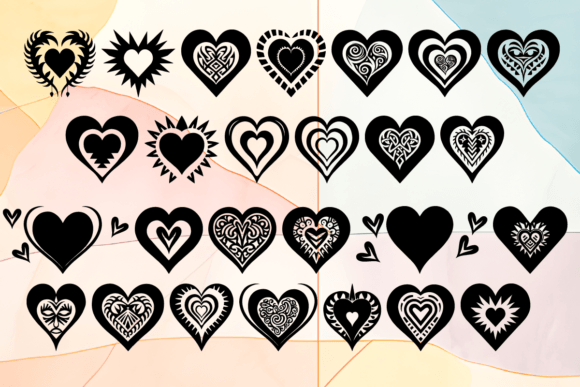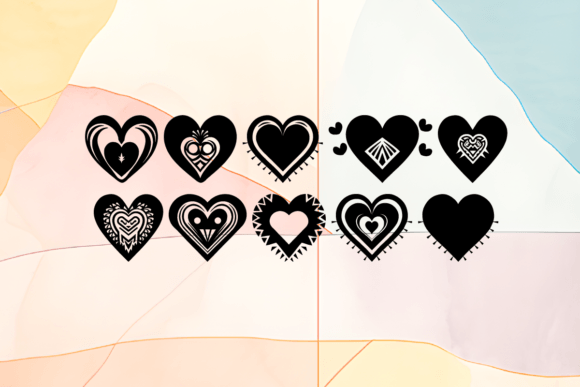
The Designer’s Delight: Funny Heart Dingbats Fonts
I’ll never forget the time I was working on a Valentine’s Day project for a client, and I just couldn’t find the perfect font to match the playful, whimsical vibe they wanted. I scoured the internet, tried out dozens of fonts, but nothing seemed quite right. That was until I stumbled upon Funny Heart Dingbats Fonts! 🤩
This digital product is a game-changer for designers, crafters, and creative hobbyists alike. With 36 whimsical characters, including the full alphabet from A to Z and the numbers 0 through 9, all adorned with playful heart designs, it’s the perfect addition to any design project.
What’s Inside: A Closer Look
So, what can you expect from Funny Heart Dingbats Fonts? Here are the details:
- 36 whimsical characters, including the full alphabet from A to Z and the numbers 0 through 9
- Perfect for adding a playful touch to your designs, from Valentine’s Day projects to everyday creative endeavors
- ✨ The playful, whimsical designs that are sure to bring a smile to anyone’s face
- 💕 The perfect addition to any Valentine’s Day or love-themed project
- ⚠️ Limited character set, which may not be suitable for projects requiring a wide range of characters
- 🤔 May not be the best fit for formal or professional designs, due to its playful nature
Funny Heart Dingbats Fonts was created with the intention of spreading joy and whimsy through design. The designer, a self-proclaimed font enthusiast, wanted to create a font that would bring a smile to people’s faces and add a touch of playfulness to their designs.